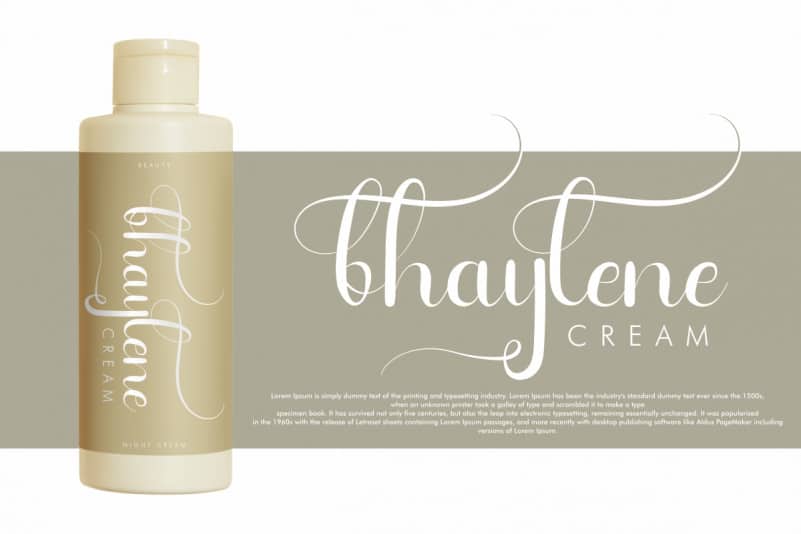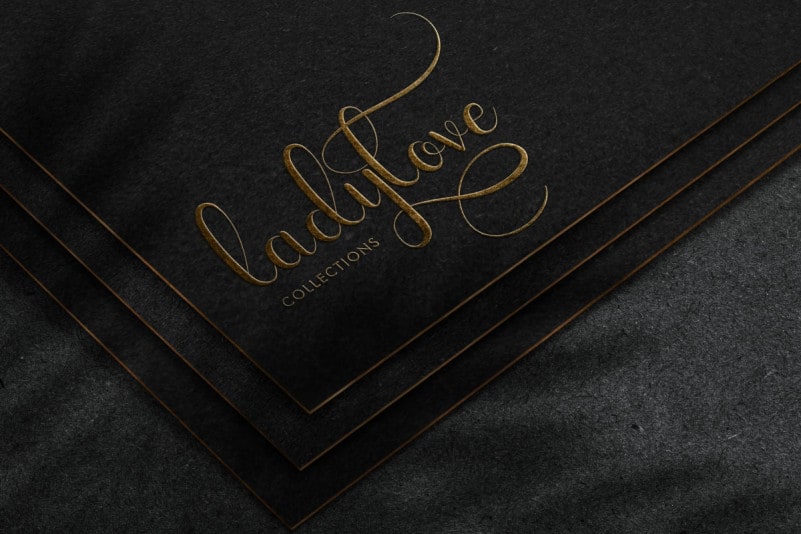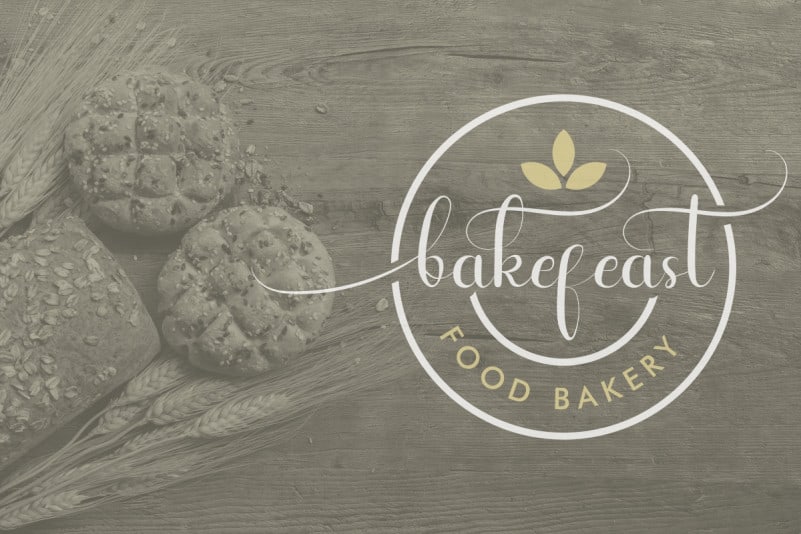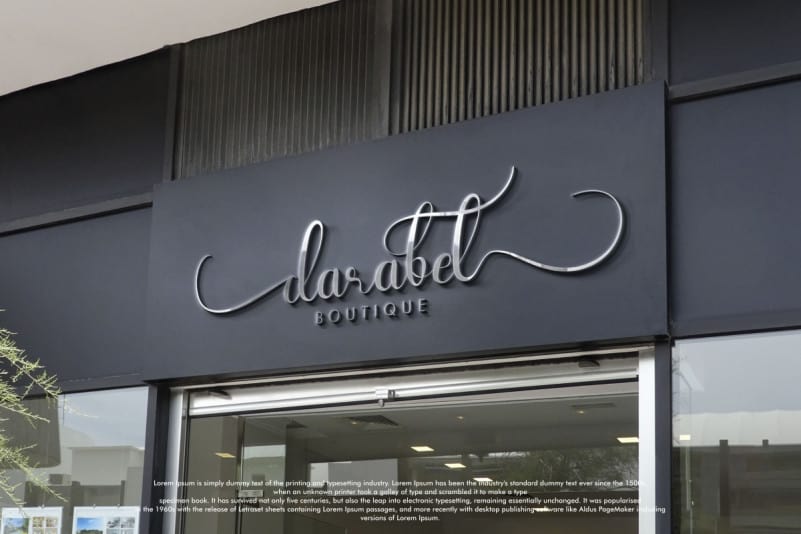
Bestnine Calligraphy Font
Bestnine Calligraphy Font is a stunning calligraphy script font with beautiful handwritten style. It was handcrafted in our Studio here in Indonesia, by our designers : Saila and Sarah.
Bestnine Font has exclusive handmade script letters with unique natural look that is elegant, sophisticated, stylish, textured and classic style. It has a stunning characters set, perfectly managed with well spaced and kerning.
Bestnine Calligraphy Font will be great for any projects (with extended license) including : branding, logo, stationery, business card, signage, flyer, brochure etc. Almost all industries will be match for this typeface: wedding, events, restaurant, architect, law firm, florist, gardening, makeup artist, travel, hotel, musician etc